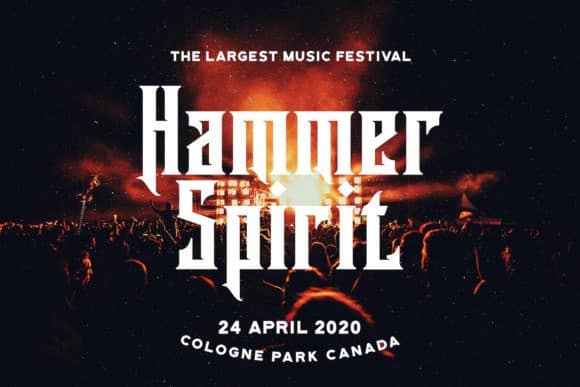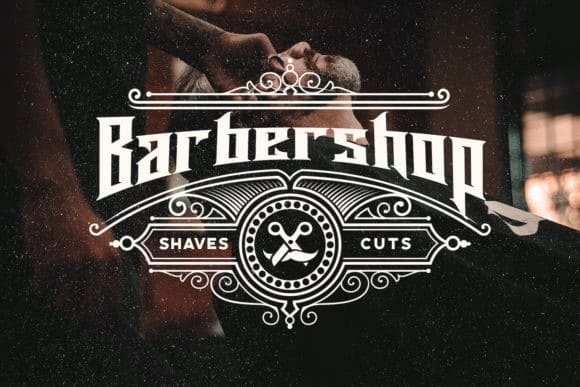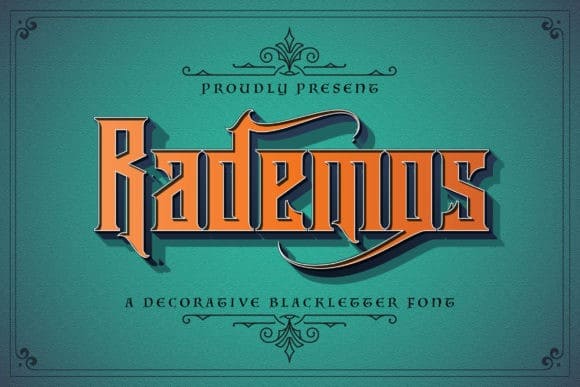
Rademos Blackletter Font is a handmade Modern Victorian handlettering, which is combining modern and classic typography with some awesome alternates. Made from font designer named StringLabs. And It’s an incredibly authentic and daring blackletter font. Add this font to your favorite creative ideas and notice how it makes them stand out!